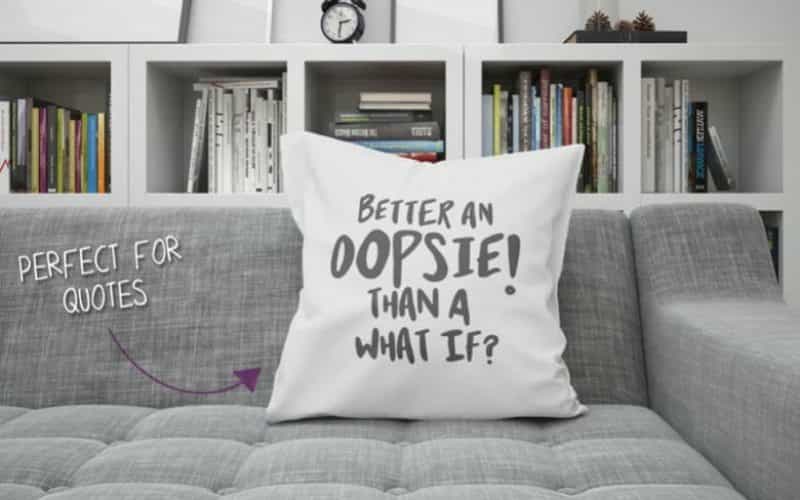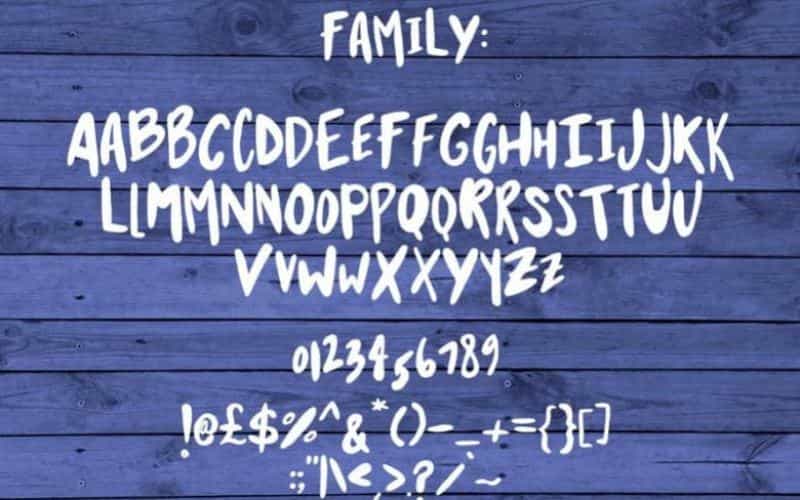
Introducing ‘Garden Flower’ a thick and fabulous new font from Salt & Pepper Designs! Great for bold headers and even works well for large blocks of text! Combine uppercase and lowercase for alternates and enjoy!? This font has been designed using a Vintage script style. It is definitely one of a kind. Not to mention the stylistic sets you have, unconnected letters, ligatures, lowercase and uppercase that come standard, also the stylistic sets that complement it.